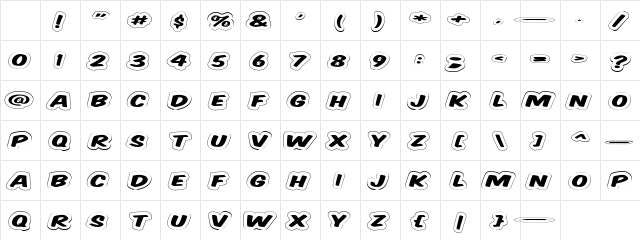
Complete VTCSuperMarketSaleDisplayWired Regular glyph index. Displaying only characters natively supported by VTCSuperMarketSaleDisplayWired Regular font.
VTCSuperMarketSaleDisplayWired is built around its visual character rather than neutral utility - its distinctive forms are designed to make an impression at display sizes.
Font Pairing: Pair with a clean neutral sans-serif for body copy to let VTCSuperMarketSaleDisplayWired's character lead without overwhelming the composition.
Pro Tip: Use VTCSuperMarketSaleDisplayWired exclusively at display sizes - it was designed to be seen, not read at length. Let a neutral companion handle body copy.